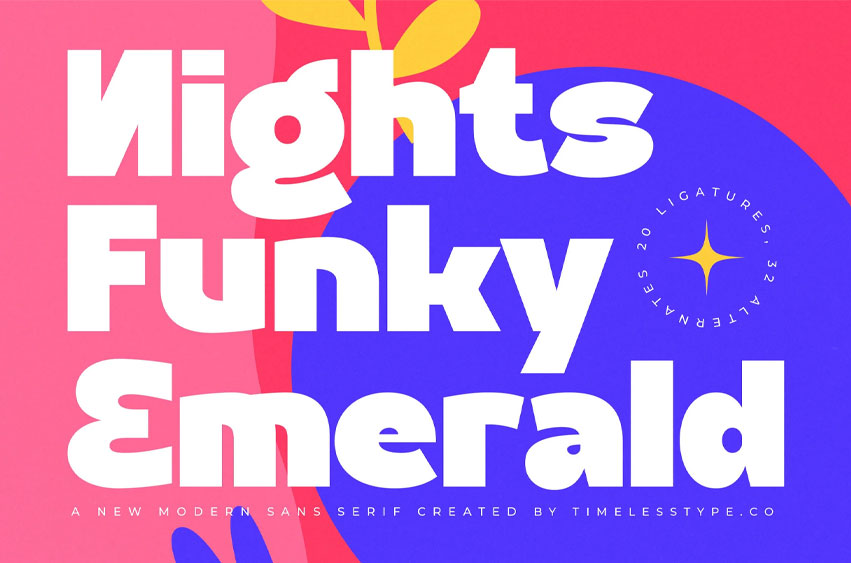
Nights Funky Emerald Font is a bold, modern sans-serif font with a funky geometric twist. Designed to bring energy, confidence, and a playful spirit to your projects, this typeface features 20 ligatures and 32 alternates that make every design stand out.
Perfect for bold branding, posters, packaging, headlines, and editorial layouts, Nights Funky Emerald combines clean modern structure with a groovy, retro-inspired character that shines in both print and digital designs.